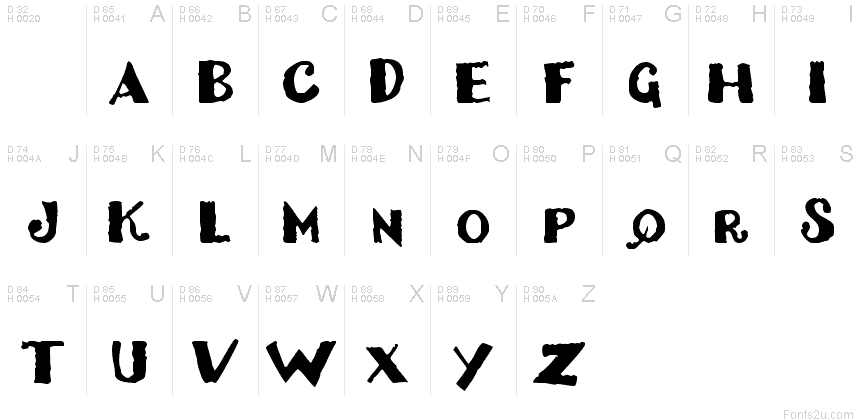
Dizzy Bitch
Dizzy Bitch font by Berry Brooks is a free distorted typeface that staggers across the line like letters cut from a grimy punk flyer. Thick, inky strokes bulge and wobble, with each character tilting at its own angle so the wordmark feels loud, drunk, and slightly dangerous. The texture suggests rough photocopies and spray paint, giving headlines a raw, handmade punch that’s hard to ignore.
This free font shines on gig posters, horror-comedy titles, underground zines, bar signage, edgy apparel graphics, and social media art where you want troublemaker energy. Using Dizzy Bitch at large sizes lets the lumpy silhouettes and uneven rhythm really hit; pair it with a clean, narrow sans serif for body text to keep the chaos focused where it matters.